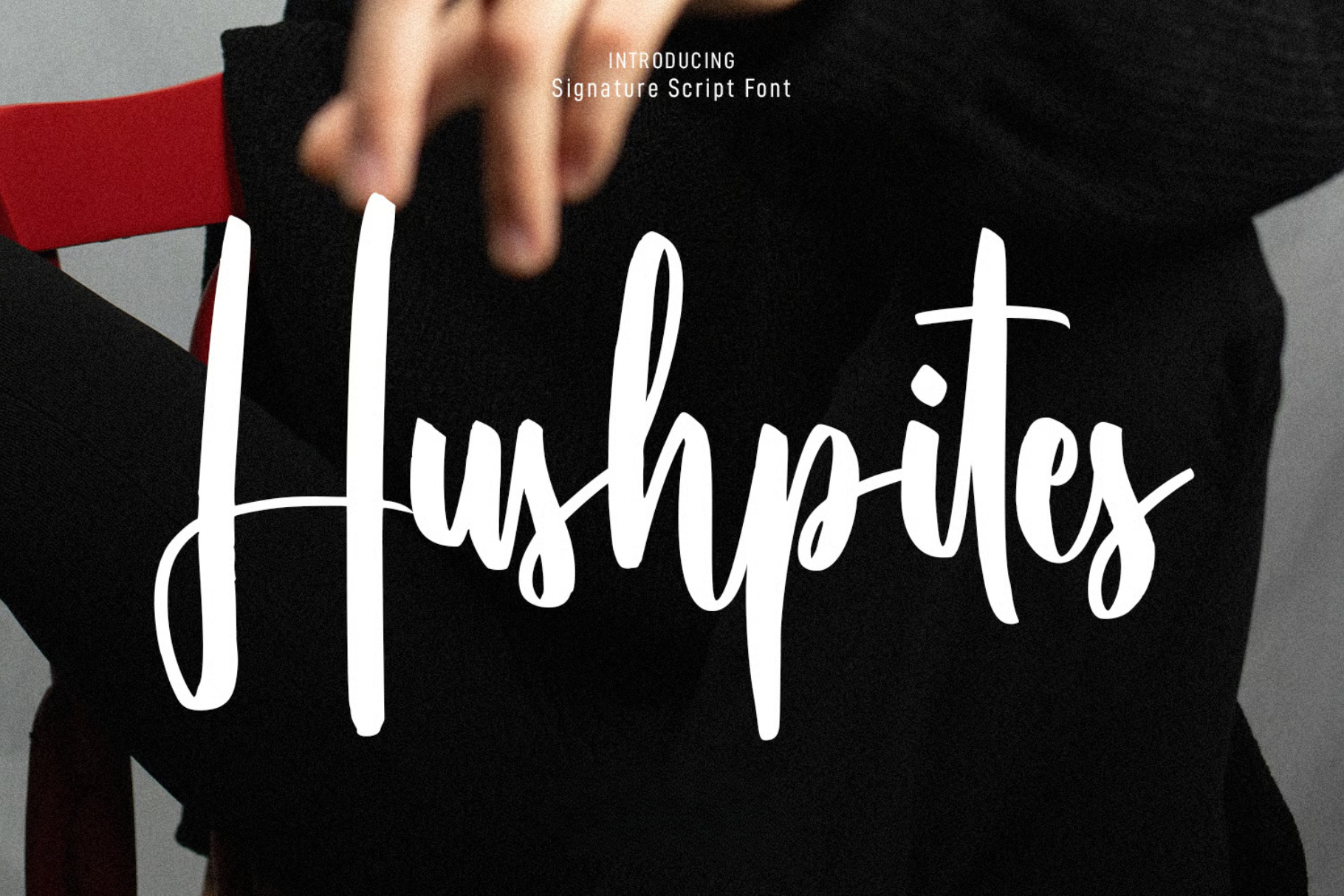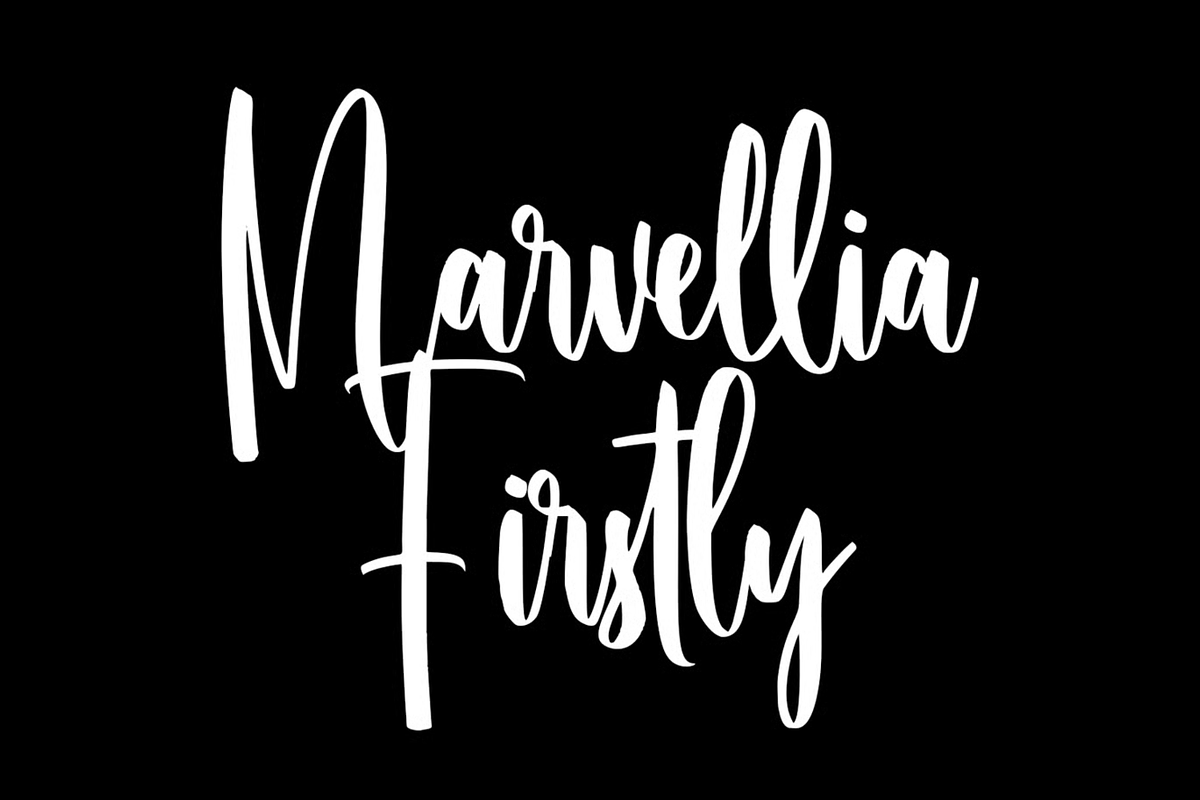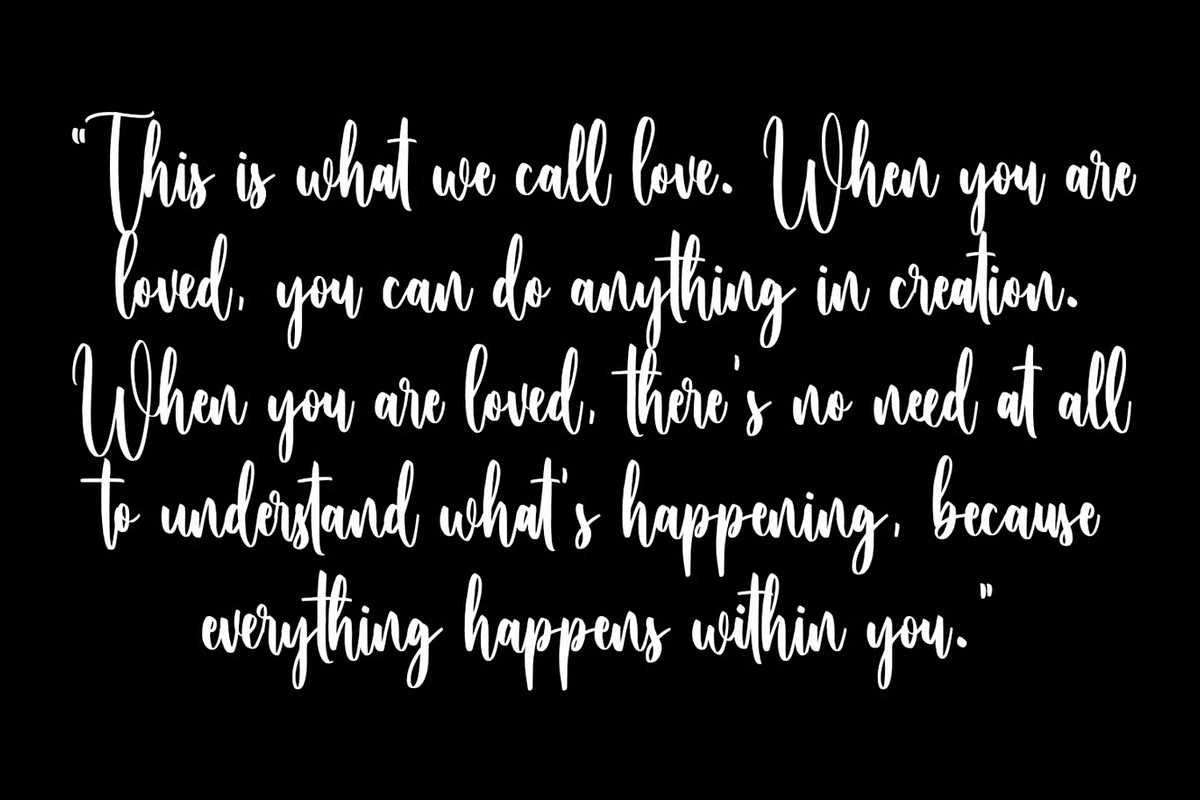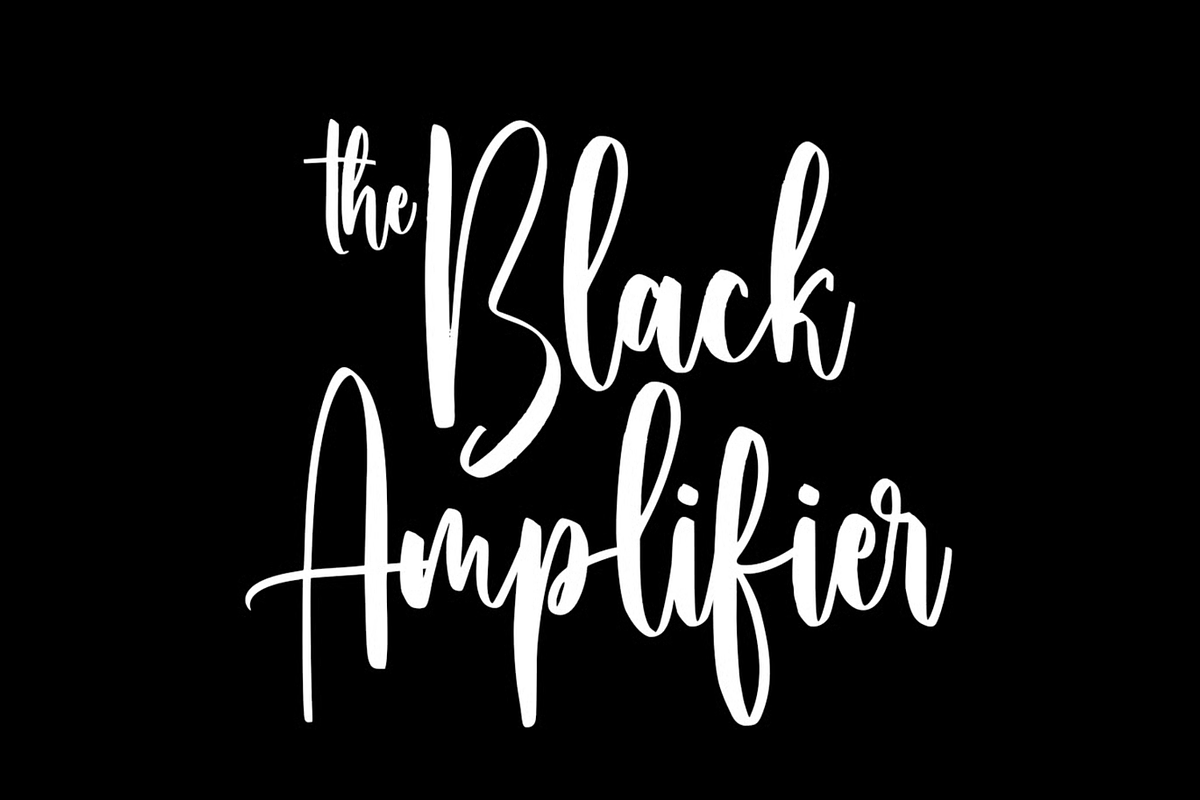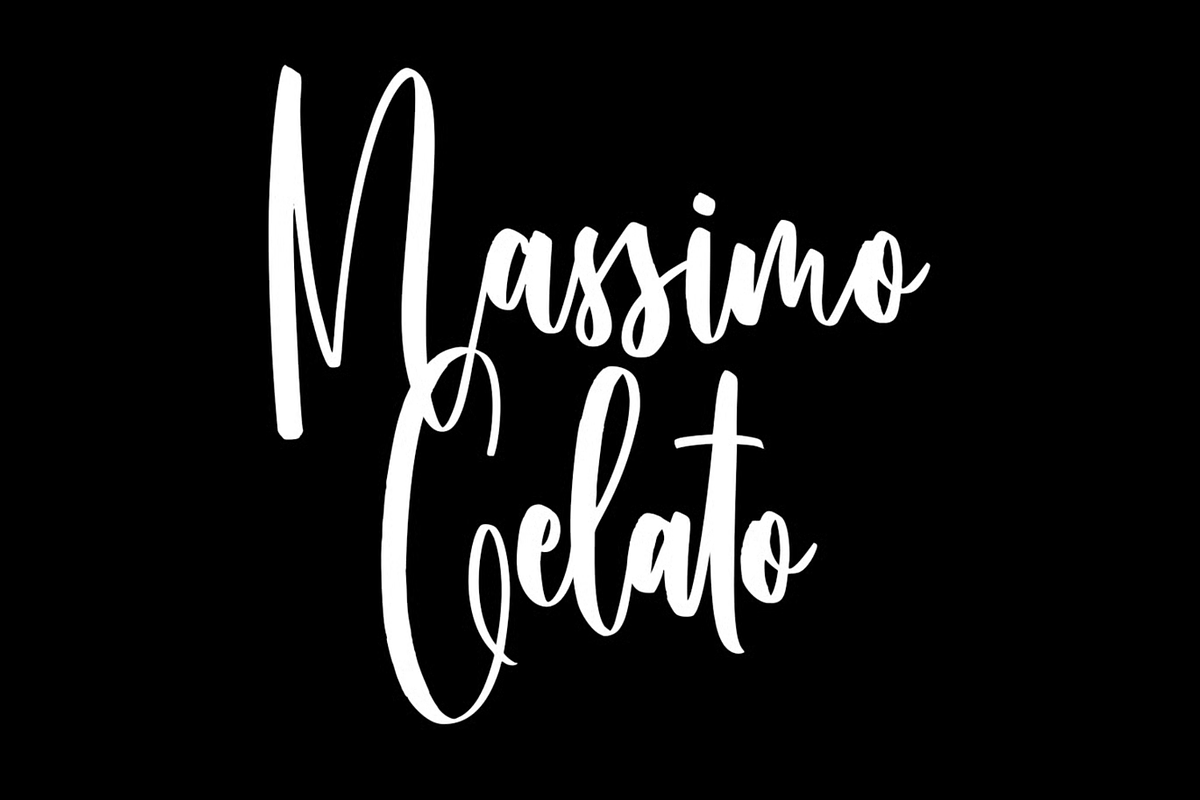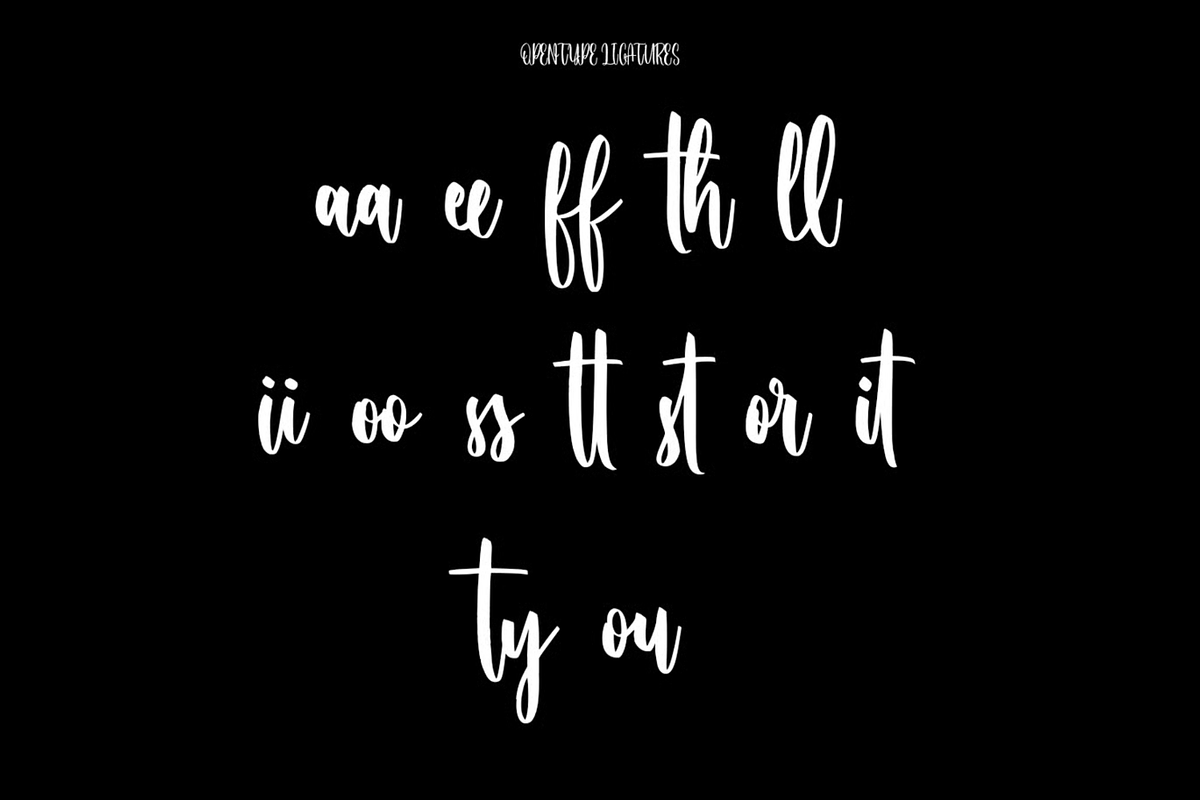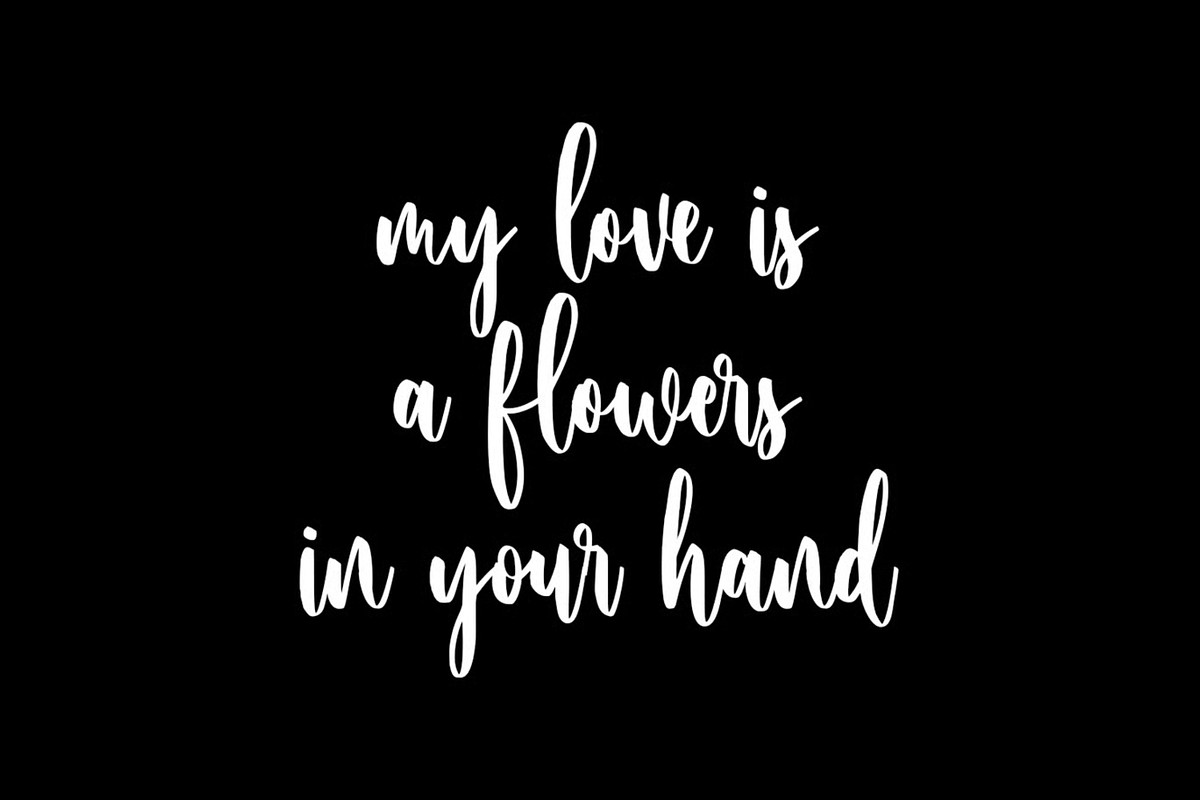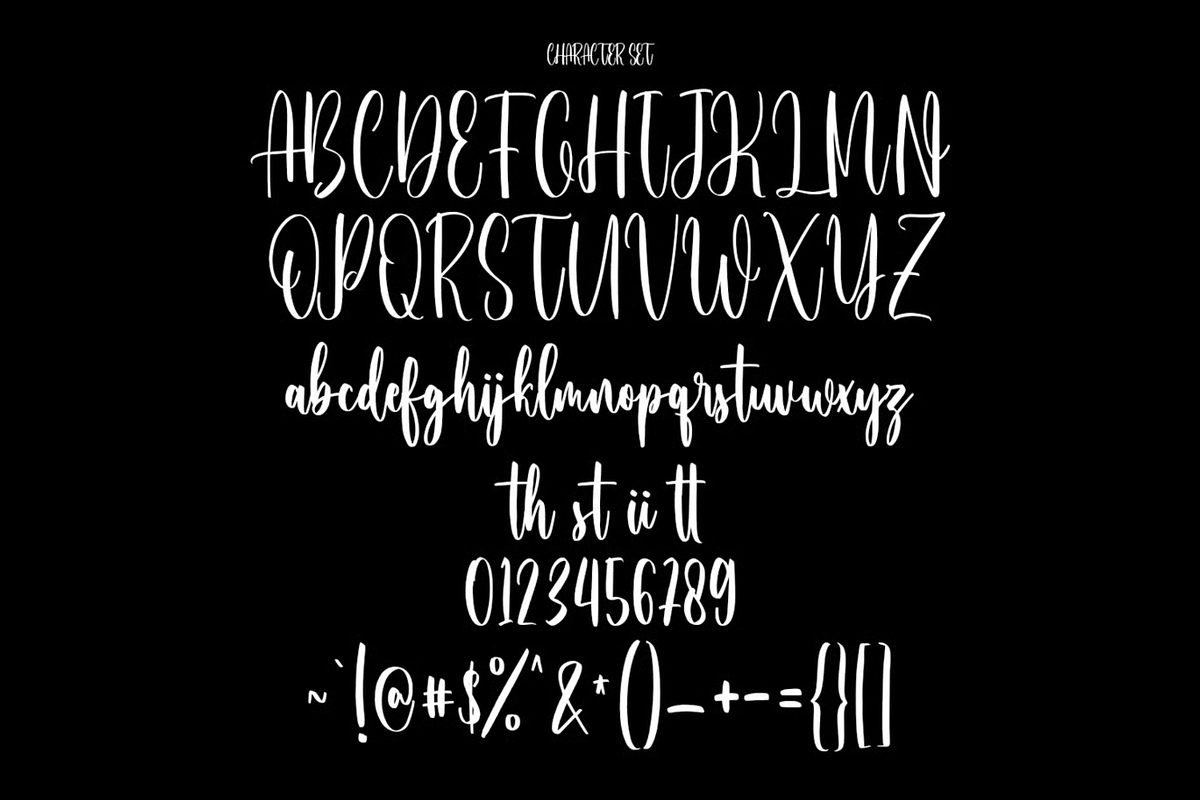
Hushpites Condensed Script Font
Hushpites is a modern script font. With upright high contrast stroke, fun character. To give you an extra creative work. Hushpites font support multilingual more than 100+ language. This font is good for logo design, Social media, Movie Titles, Books Titles, a short text even a long text letter and good for your secondary text font with sans or serif. Make a stunning work with Hushpites font.